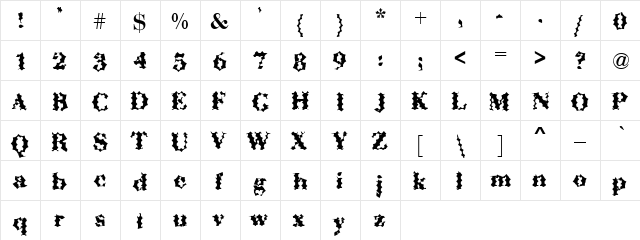
Spring Action Regular
Design Context for Spring Action Typeface
Spring Action is a composed and adaptable typeface that performs quietly and consistently across a wide range of design contexts.